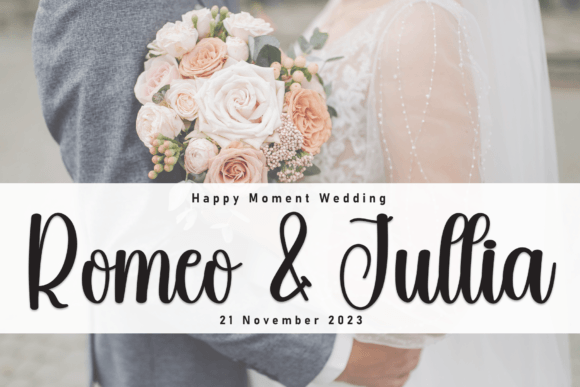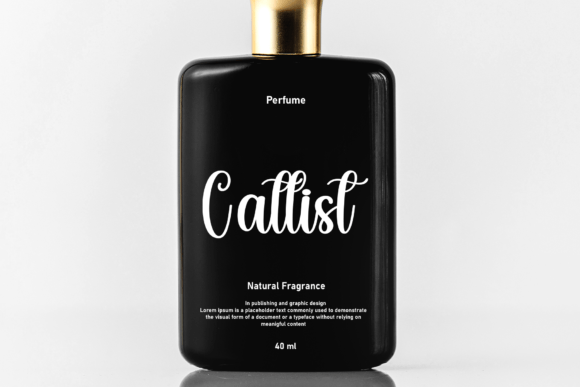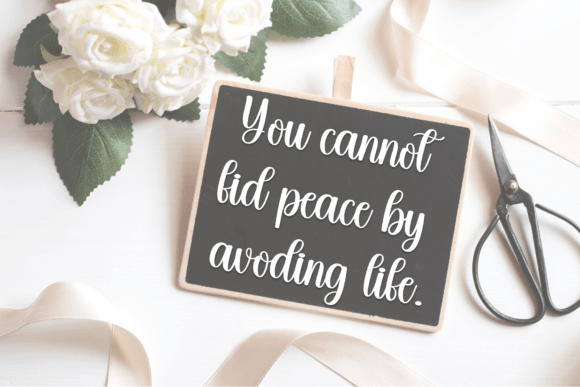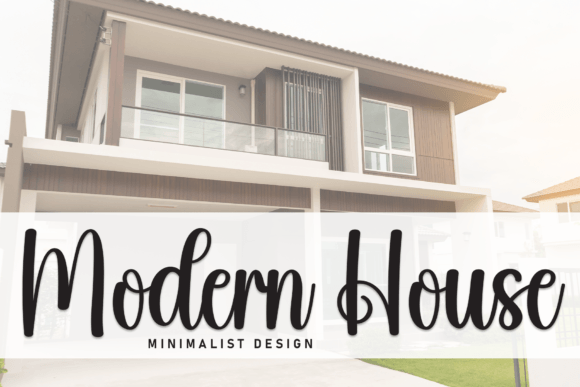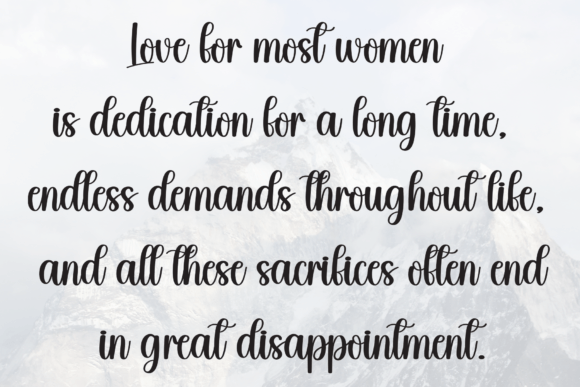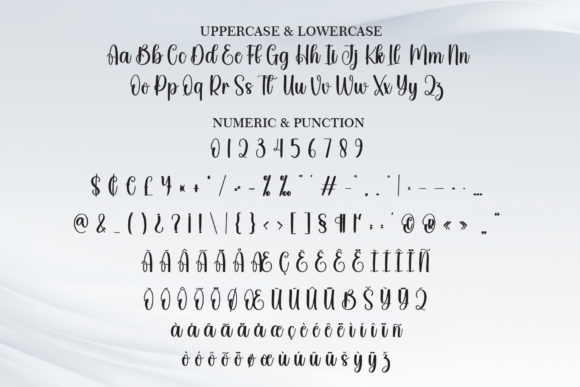
Introducing Anything Font: The Sweet and Friendly Handwritten Font for Your Design Needs
Are you looking for a font that can add a touch of warmth and personality to your designs? Look no further than Anything Font, a sweet and friendly handwritten font that’s perfect for creating fun and engaging visual content. In this article, we’ll explore the features and benefits of Anything Font, and show you can use it to take your designs to the next level.
What is Anything Font?
Anything Font is a beautiful handwritten font that’s designed to bring a sense of joy and playfulness to your designs. With its cute and fun appearance, this font is ideal for writing wedding invitations, cards, or any other design that might need a fun touch. Whether you’re a designer, crafter, or DIY enthusiast, Anything Font is a versatile and easy-to-use font that can help you create stunning visual content.
Key Features of Anything Font
So, what makes Anything Font so special? Here are some of its key features:
- Handwritten appearance: Anything Font has a natural, handwritten look that’s perfect for creating personal and engaging designs.
- Cute and fun: This font is designed to bring a sense of joy and playfulness to your designs, making it perfect for projects that require a lighthearted touch.
- Versatile: Anything Font can be used for a wide range of design projects, from wedding invitations and cards to posters, flyers, and more.
Uses for Anything Font
So, what can you use Anything Font for? Here are some ideas to get you started:
- Wedding invitations: Add a touch of romance and whimsy to your wedding invitations with Anything Font.
- Cards and stationery: Create personalized cards and stationery that are perfect for birthdays, holidays, and other special occasions.
- Posters and flyers: Use Anything Font to create eye-catching posters and flyers for events, promotions, and more.
- Social media graphics: Add a personal touch to your social media graphics with Anything Font.
- Crafting projects: Use Anything Font to add a personal touch to your crafting projects, such as scrapbooking, journaling, and more.
Tips for Using Anything Font
Here are some tips for getting the most out of Anything Font:
- Pair with other fonts: Experiment with pairing Anything Font with other fonts to create a unique and visually appealing design.
- Use in combination with images: Combine Anything Font with images or graphics to create a stunning visual design.
- Experiment with colors: Try out different colors and color combinations to add depth and interest to your designs.
- Keep it simple: Don’t be afraid to keep your design simple and clean – Anything Font can shine on its own!
In conclusion, Anything Font is a sweet and friendly handwritten font that’s perfect for designers, crafters, and DIY enthusiasts. With its cute and fun appearance, versatile design, and easy-to-use features, this font is ideal for creating a wide range of visual content. Whether you’re looking to add a touch of whimsy to your wedding invitations or create eye-catching posters and flyers, Anything Font is the perfect choice. So why not give it a try and see what amazing designs you can create?